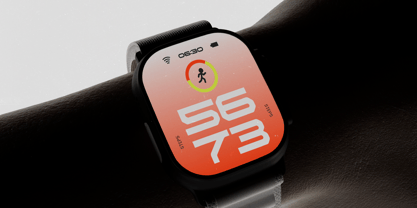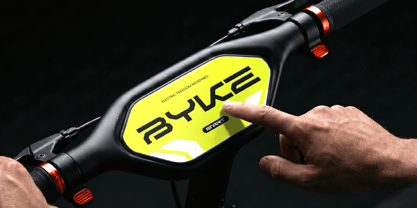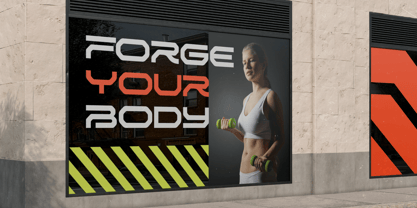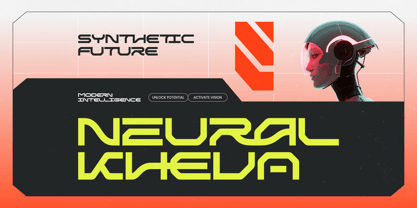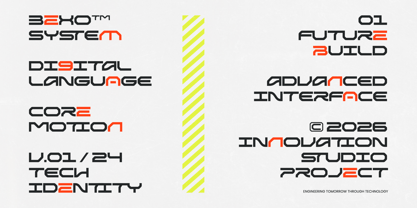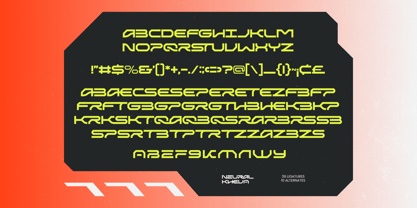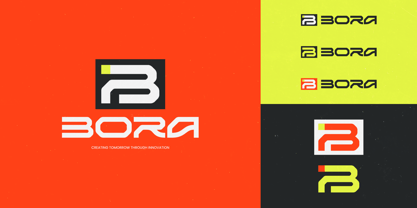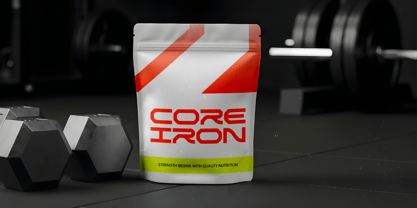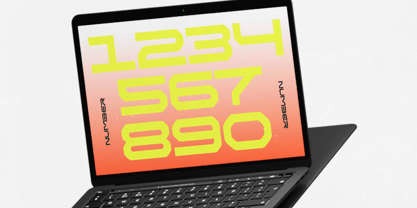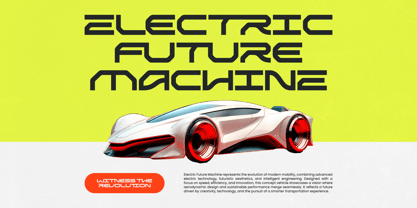
Neural Kheva
by Timelesstype Studio
The Neural Kheva Font Family was designed by Heru Utama Putra and published by Timelesstype Studio. Neural Kheva contains 2 styles and family package options. More about this family
Step into the future of digital expression with Neural Kheva, a font that redefines the boundaries of high-tech aesthetics and precision engineering. It is a masterpiece of forward-thinking design, crafted for creators who want to lead the next era of visual communication.
Inspired by the sleek curves of advanced robotics and the complex architecture of neural networks, this typeface captures the pulse of a cyberpunk landscape. It draws from the clinical beauty of science fiction interfaces and the rapid evolution of artificial intelligence to create a visual language that feels both alien and sophisticated.
This typeface commands attention with its distinct personality, offering a powerful modern serif display alternative in the world of high-concept design. While it leans into the digital realm, it maintains a luxury typography feel that ensures every word carries an editorial font quality and significant branding impact for modern creators.